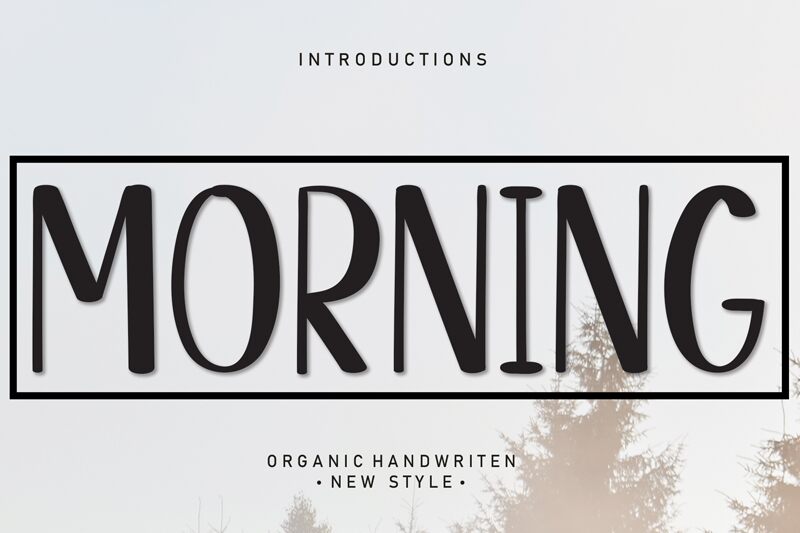
Morning
Morning, designed by Scratchones, exudes a charming aura with its organic handwritten style that adds a personal touch to any project. Its condensed form allows for creative use in spaces where traditional handwriting might feel too expansive, without sacrificing legibility or the intimate appeal of a handcrafted typeface.
This font is ideally suited for designs that require a bespoke feel, such as invitations, greeting cards, and branding for artisanal products. Morning's friendly and approachable character ensures it stands out in casual contexts or when aiming to convey warmth and individuality.